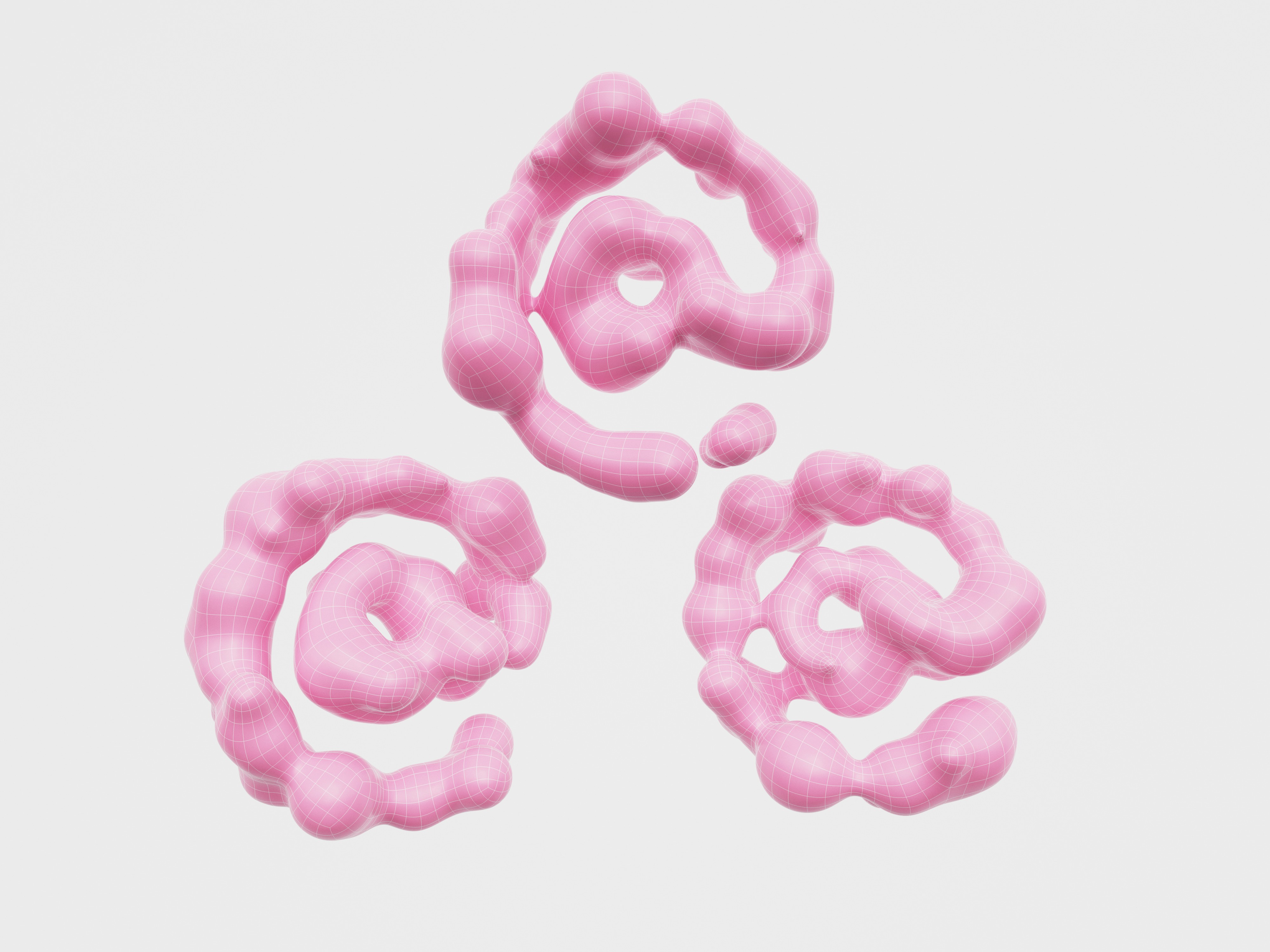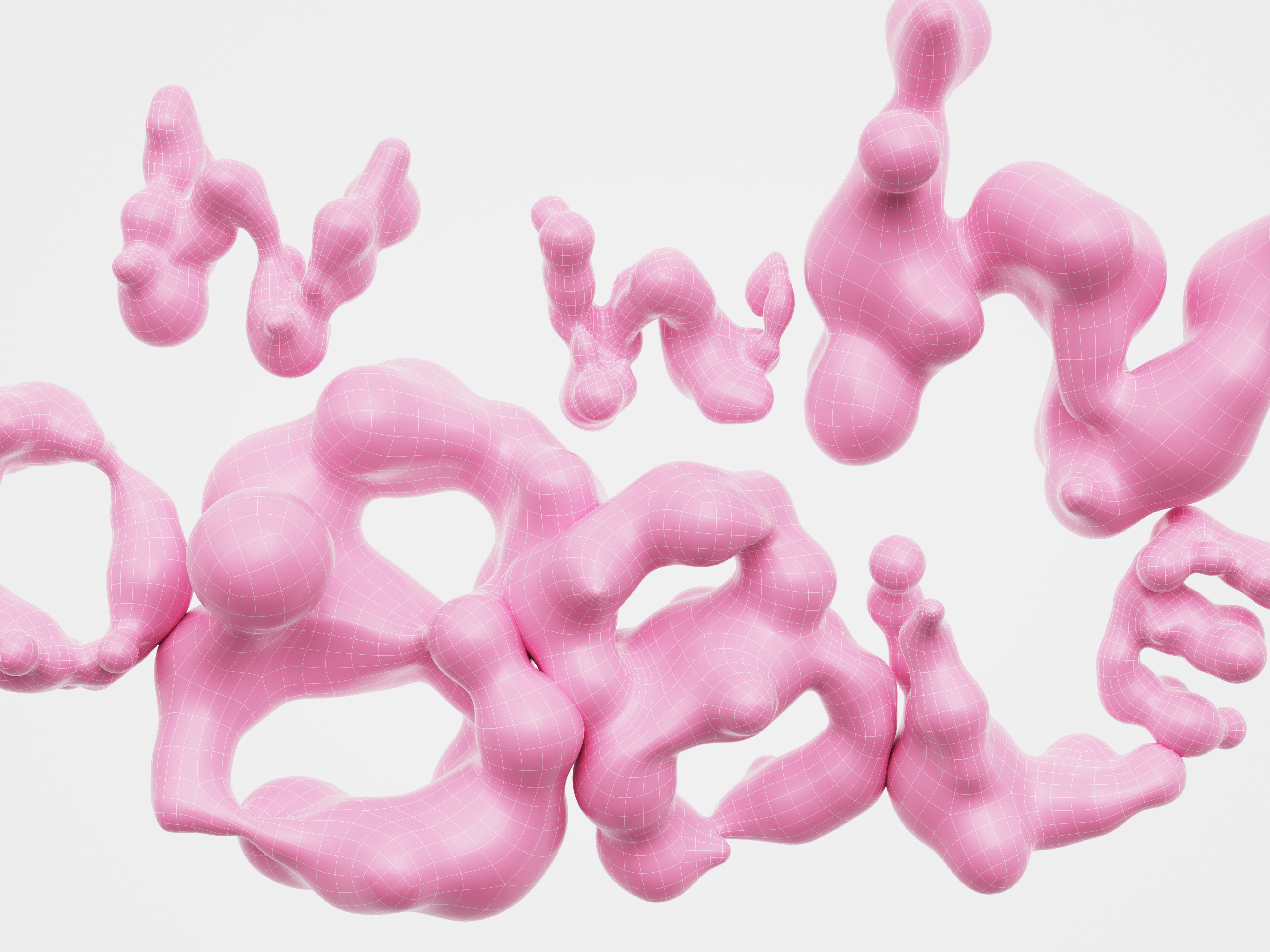
TC Bubble
Parametric 3d Typeface
What does a native 3D typeface look like? Just like chisels and broad-nib pens surely 3D tools used to create typefaces would leave their own distinct marks.
Using a typical 3D motion graphics toolset of splines, cloners, random noises and VDB meshing, I created a parametric typeface that would be flexible in production use, visibly 3D made, proudly showing the traces of its origins.
I designed a spline skeleton for each letter, which served as the base structure, onto which I cloned equally spaced spheres. The spheres were then manipulated in both scale and position by random noise values within pre-defined parameters. Lastly, the spheres of each letter were merged into one organic shape using a VDB workflow.
Spheres cloned on top of a skeleton spline, influenced in size and position by random noise within set paramenters.
Steps from skeleton spline to 3D mesh.
The result is an organic, expressive typeface, showing clearly identifyable traces of the tools used to create it. The use of random noise values to manipulate the underlying spheres allows for an endless amount of variations per letter. The pre-defined parameter limits make sure that all variants adhere to a visibly coherent direction.
The whole gylphset.